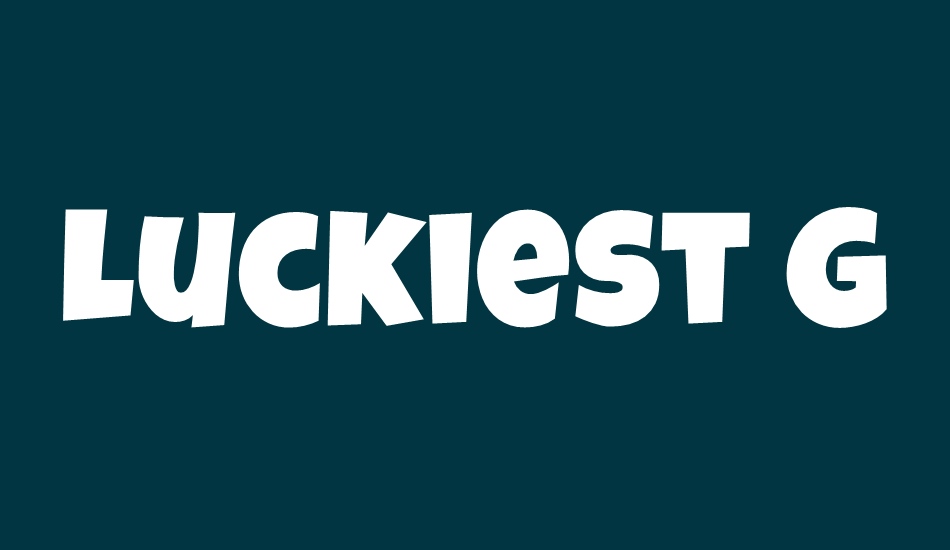
Luckies Guy Font
Luckies Guy Font - Web luckiest guy is a friendly heavyweight sans serif typeface inspired by 1950s advertisements with custom hand lettering. Web download the luckiest guy font by astigmatic one eye typographic institute. The luckiest guy font has been.